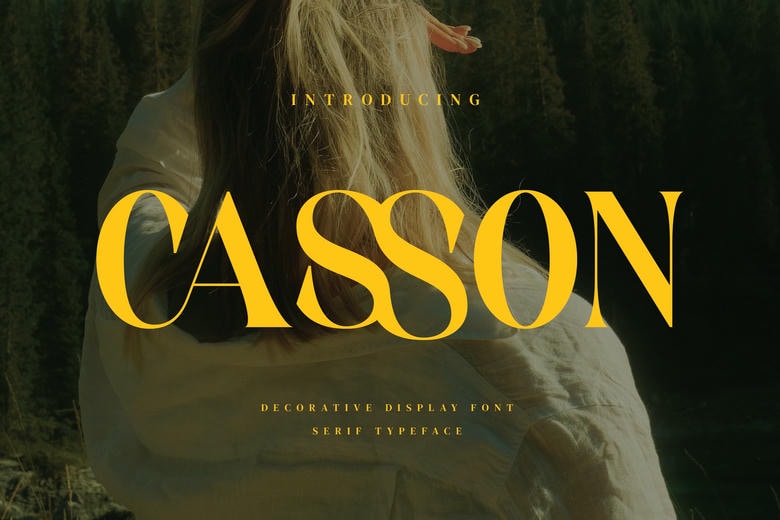
Casson Font
Casson Stylish Ligature Typeface can be considered as the productive typefaces based the famous minimalist logo is suitable for the designing templates, brochures, videos, adverting branding logos and many other.
Casson Serif Font